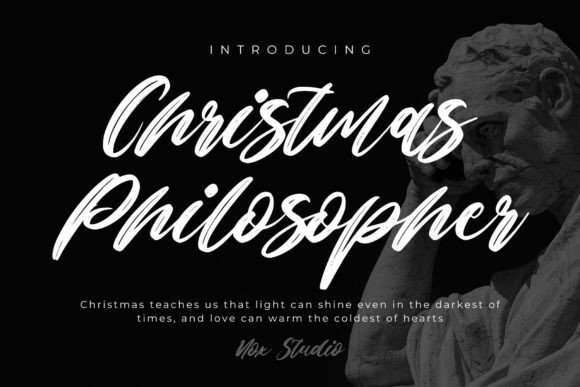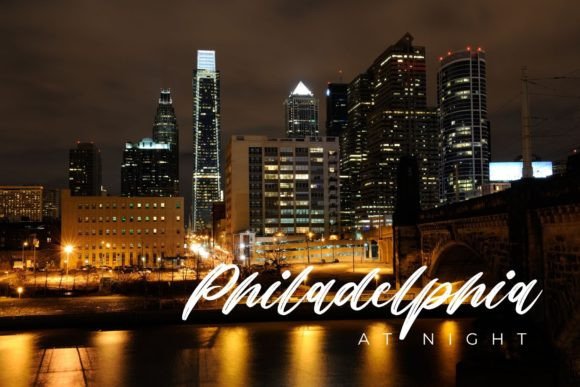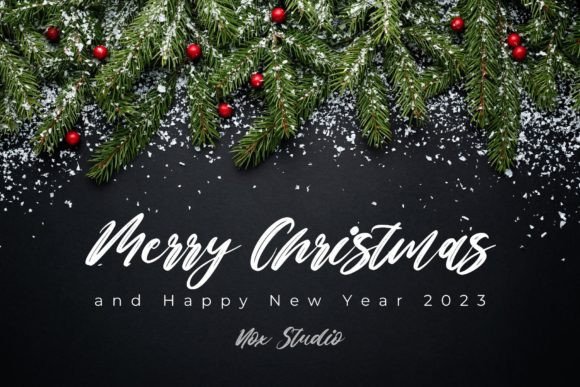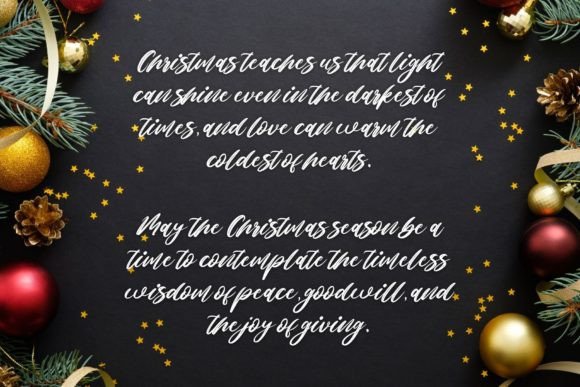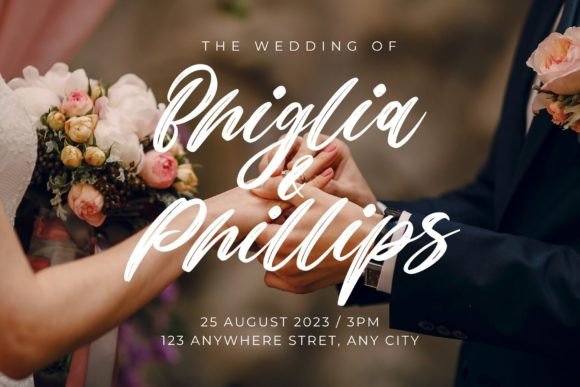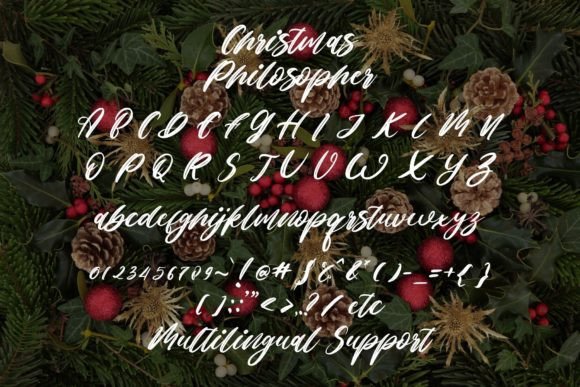
Unwrap the Magic of the Christmas Season with the Christmas Philosopher Font
As the snowflakes start to fall and the twinkling lights adorn the streets, we’re reminded of the magic that lies within the Christmas season. It’s a time for creativity, joy, and self-expression. For designers, this means unleashing their imagination and bringing their festive visions to life. And what better way to do that than with the perfect font?
Enter the Christmas Philosopher Font – a dazzling and timeless handwritten font that’s sure to capture the essence of the holiday season. With its PUA encoding, you’ll have easy access to all glyphs and sweeps, giving you the freedom to create stunning designs that will leave a lasting impression. Whether you’re designing festive cards, posters, or social media graphics, this font is the perfect companion for your holiday projects.
Christmas Philosopher Font Key Features
- Font Family: Christmas Philosopher, with a unique blend of traditional and modern elements, perfect for festive and philosophical themes.
- Unique Characteristics: The font features intricate, hand-drawn details and ornaments, making it ideal for creating visually striking designs and adding a touch of elegance to festive content.
Review of Christmas Philosopher Font
I recently had the chance to work with the Christmas Philosopher Font, and I must say it’s an interesting choice for the holiday season. ✨ The font’s unique blend of cursive and script elements gives it a warm, inviting feel that’s perfect for festive designs.
- The font’s most striking feature is its ability to evoke a sense of nostalgia and tradition. ✨ The classic, elegant feel of the letters is reminiscent of handwritten cards and decorations from a bygone era.
- Another advantage is the font’s versatility. ✨ It works well for a wide range of holiday-themed projects, from greeting cards to website headers.
However, there are some limitations to consider. ⚠️ The font may not be the best choice for designs that require a modern, sleek look. The cursive elements can make the text appear slightly dated or even childish.
Overall, I think the Christmas Philosopher Font is a great choice for those looking for a classic, holiday-inspired feel. While it may not be the best fit for every design project, it’s certainly worth considering for festive-themed work.
Getting the Most Out of Christmas Philosopher Font
To get the most out of Christmas Philosopher Font, use it sparingly to add a touch of whimsy to your designs. Pair it with bold, modern fonts to create a striking contrast. Experiment with different font sizes and colors to create visual interest.
Christmas Philosopher Font is perfect for holiday-themed designs, such as greeting cards, gift tags, and social media posts. It’s also great for adding a playful touch to branding materials, like logos and business cards.